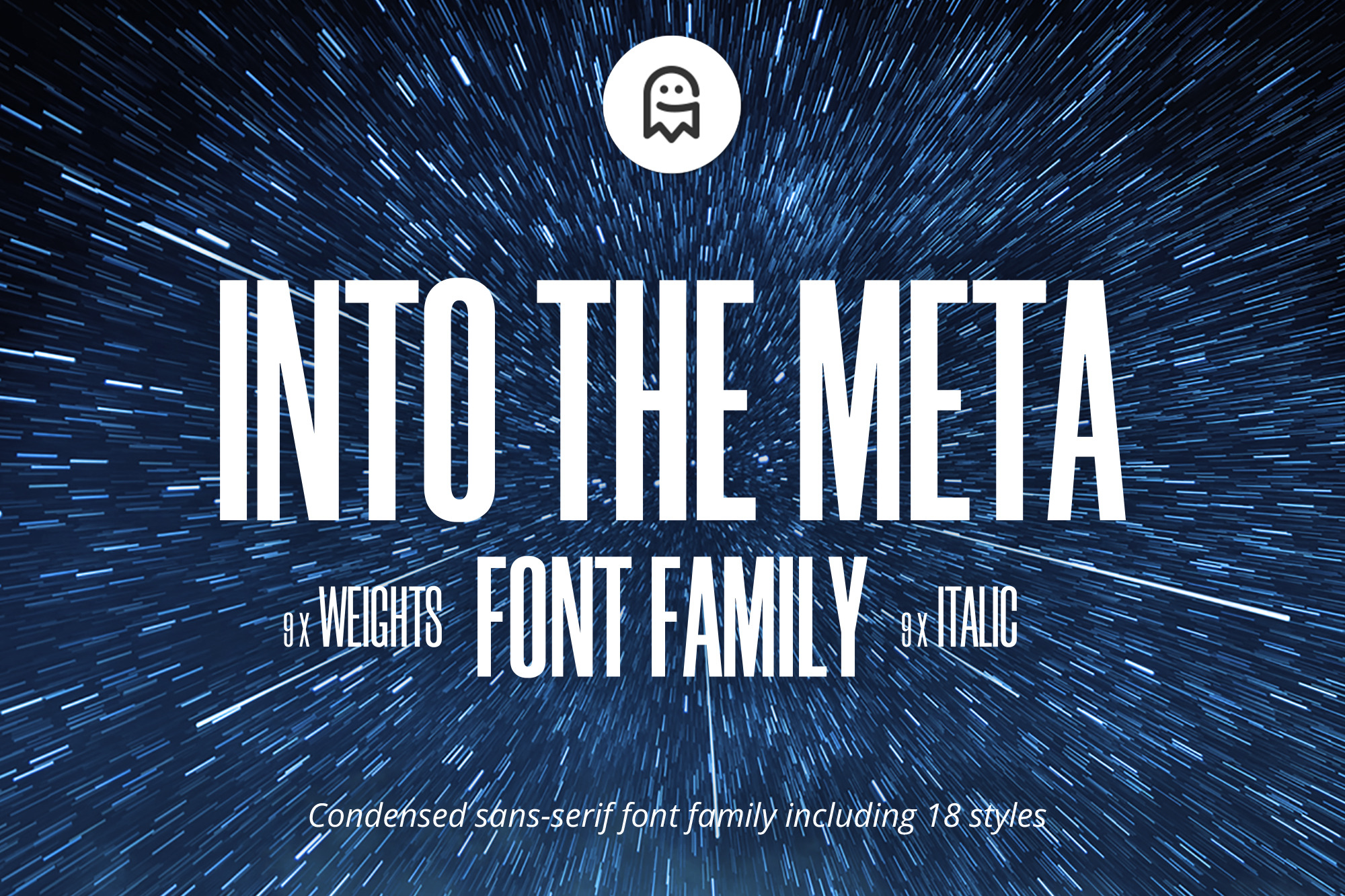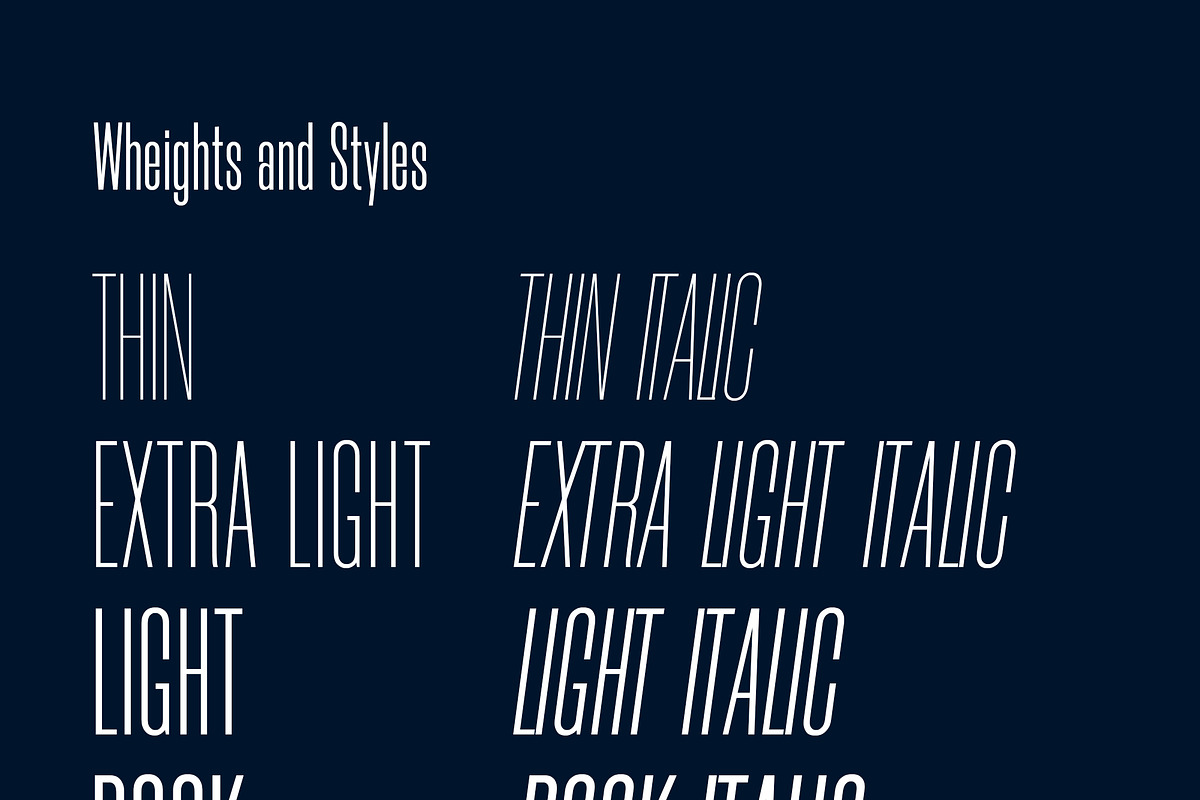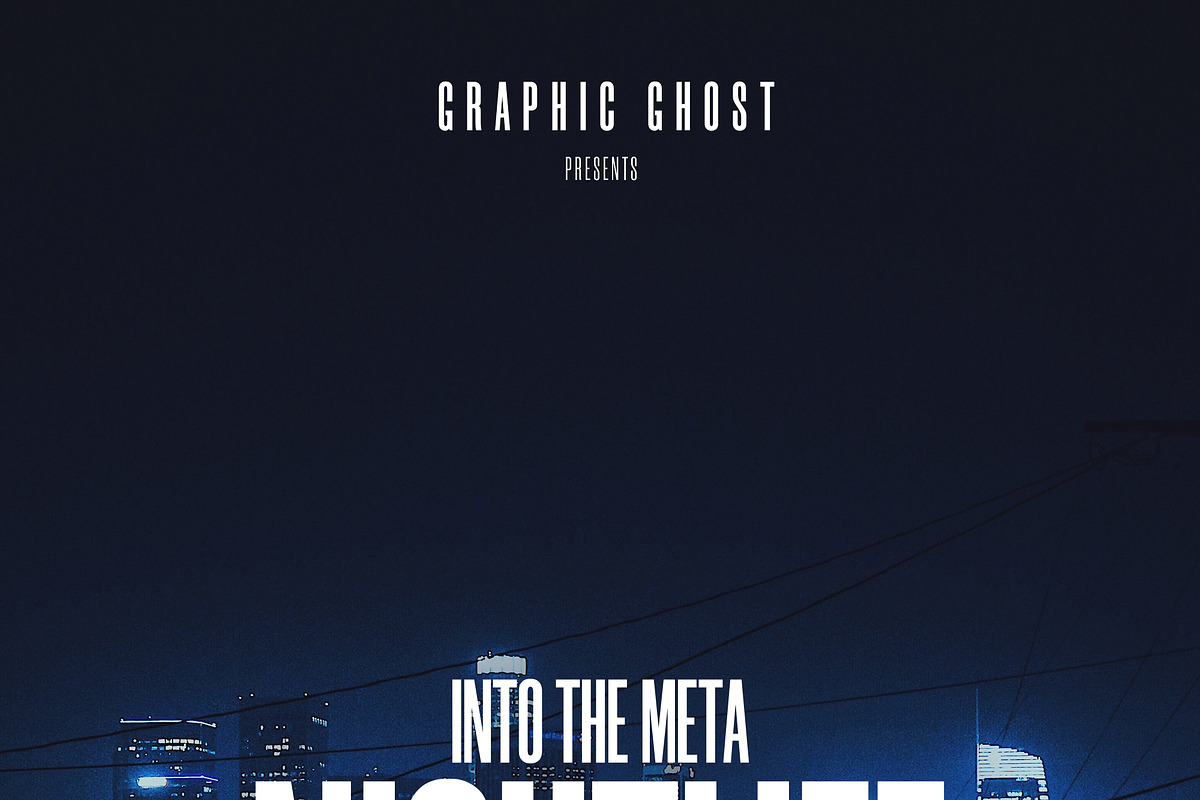
Into the Meta – Font Family
Into the Meta is a font family including 18 styles – from thin to black including italic styles. This awesome futuristic condensed font is a great choice for all web and graphic designers who design websites, apps, all kind of interfaces, posters, flyers, magazines and more. The Into the Meta Font Family is available as otf and ttf files. The sans serif condensed font family is designed and released by Graphic Ghost and can be used for personal and commercial projects.